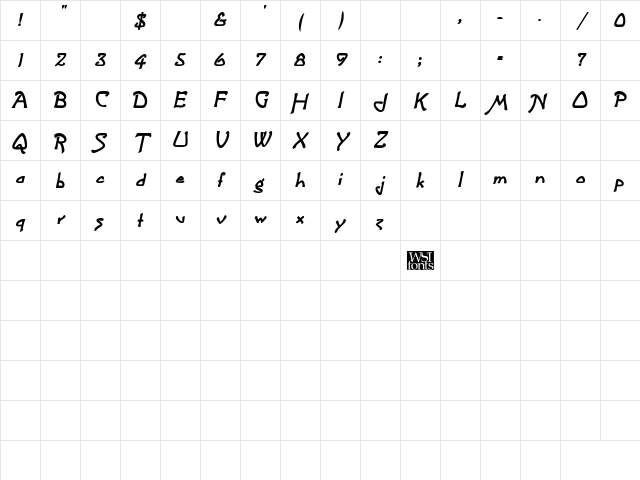
Lublick Bold Italic
Design Context for Lublick
Lublick is a composed and adaptable typeface that performs quietly and consistently across a wide range of design contexts. The slanted form adds forward momentum and visual energy. Its bold stroke weight gives it real presence on the page.
Pro Tip: Use Lublick for emphasis, pull quotes, and subheadings where its slanted energy can add rhythm to the layout.